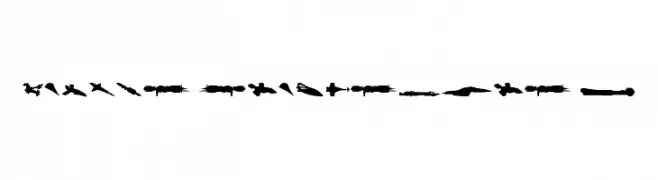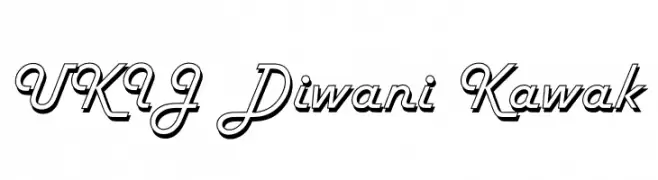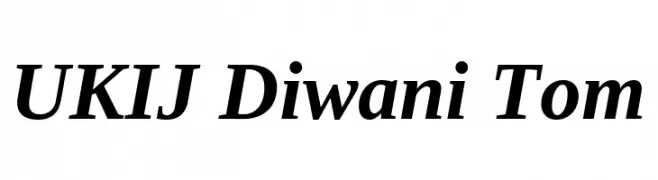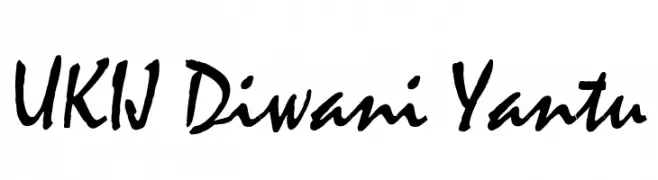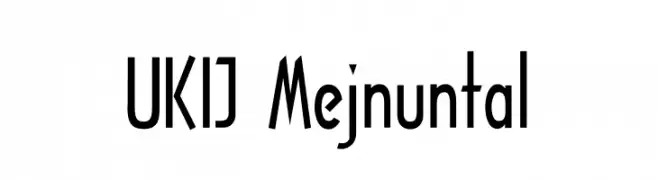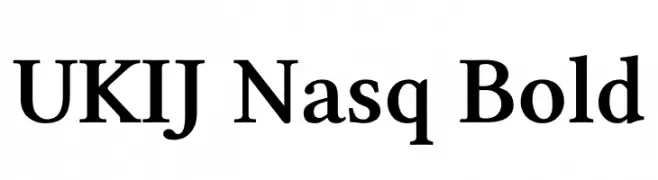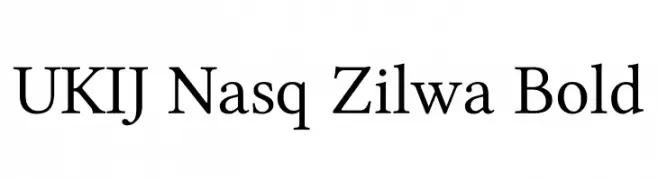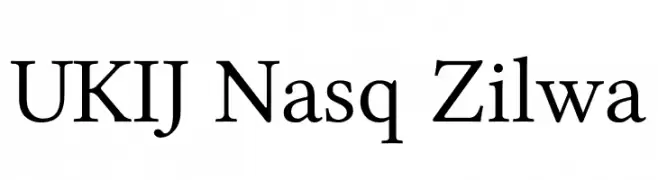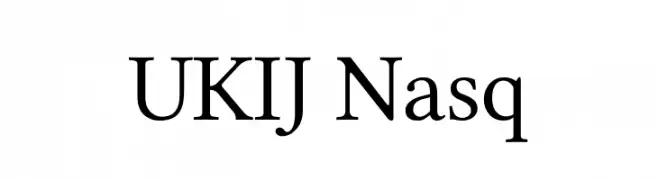
An elegant script font with a shadow effect, offering a three-dimensional look.
A classic, elegant font with a slight italic slant and moderate contrast.
A dynamic handwritten font with fluid, expressive strokes.
A classic serif font with elegant strokes and refined serifs.
A classic serif font with bold, elegant strokes and balanced readability.
A classic serif font with elegant strokes and balanced structure.
A bold, classic serif font with strong strokes and elegant serifs.
A modern, tall, and narrow font with elegant, elongated characters.
A bold, geometric font with a futuristic and robust design.
A display font featuring spaceship silhouettes as glyphs.